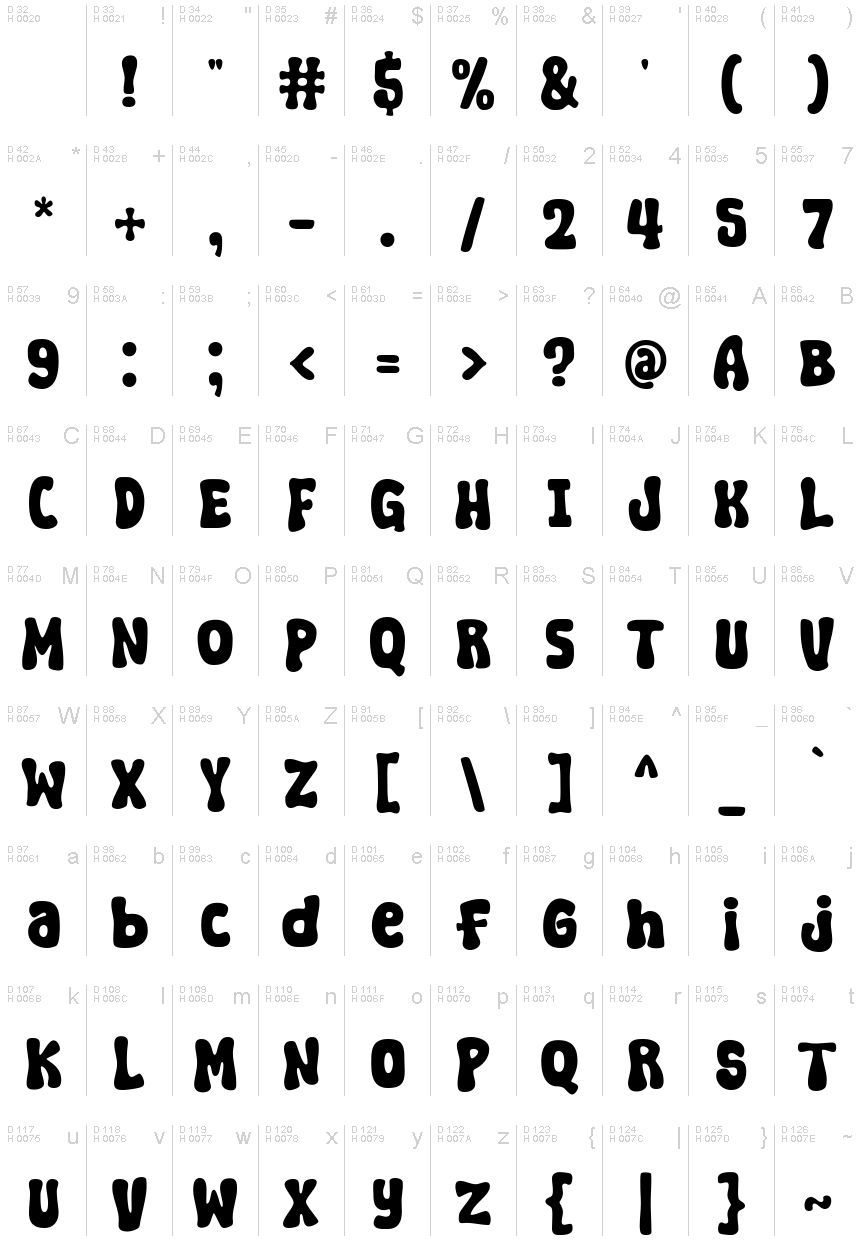
Super Quench
Super Quench bursts onto the scene with a lively cartoon style that radiates fun and creativity. Designed by fsuarez913, this display font dances with a vivacious energy reminiscent of classic bubble fonts yet stands out with its own bold flair. Its exaggerated, playful curves and sturdy form make it an excellent choice for designs that demand attention while invoking a sense of joy and nostalgia.
Ideal for projects that aim to delight and engage, Super Quench is well-suited for playful logos, vibrant website headers, or quirky social media posts where personality is key. Embrace the exuberance of Super Quench to infuse your creative endeavors with a spirited charm that's hard to overlook.
Super Quench: A Font Full of Fun and Fizz!